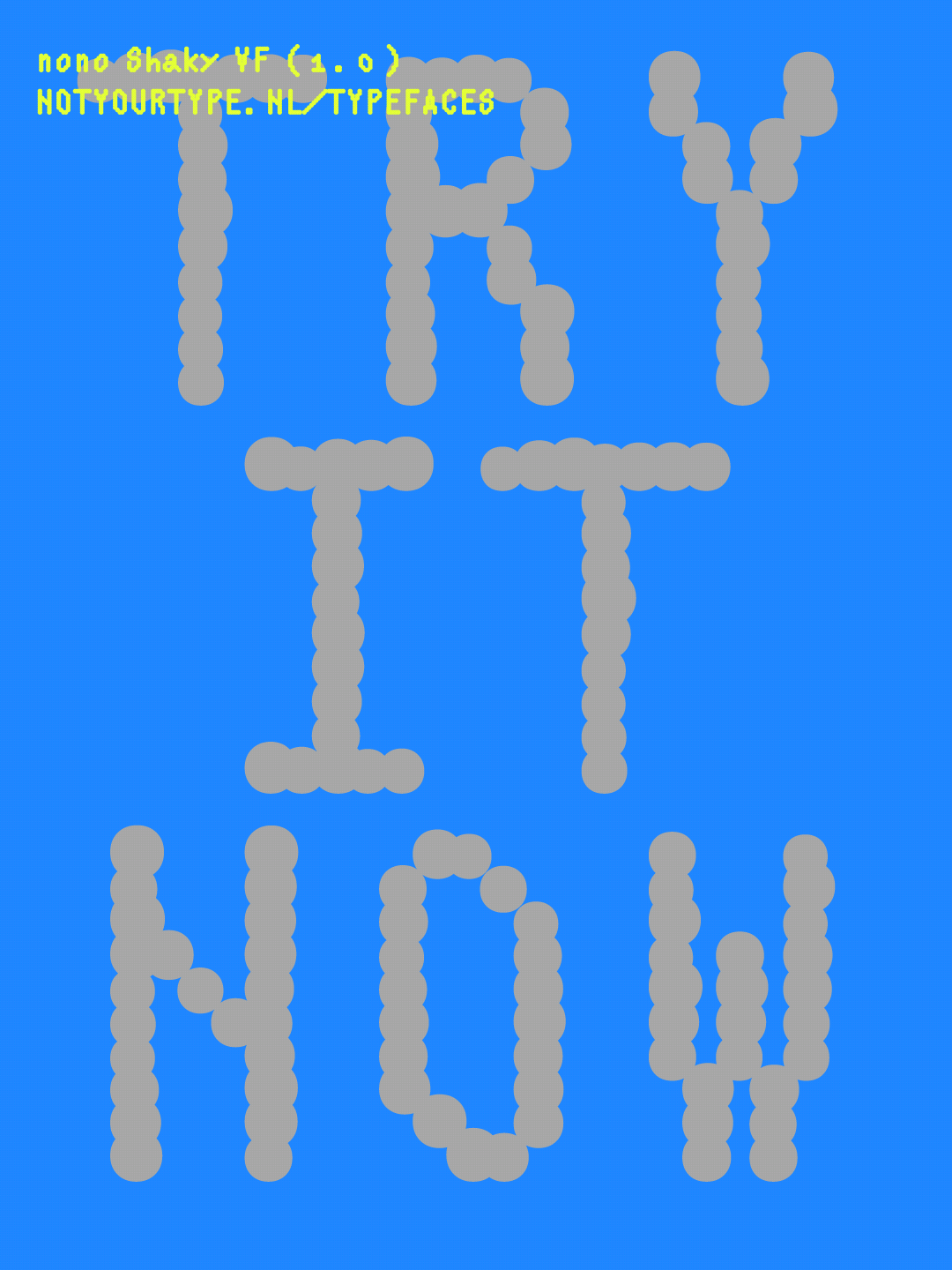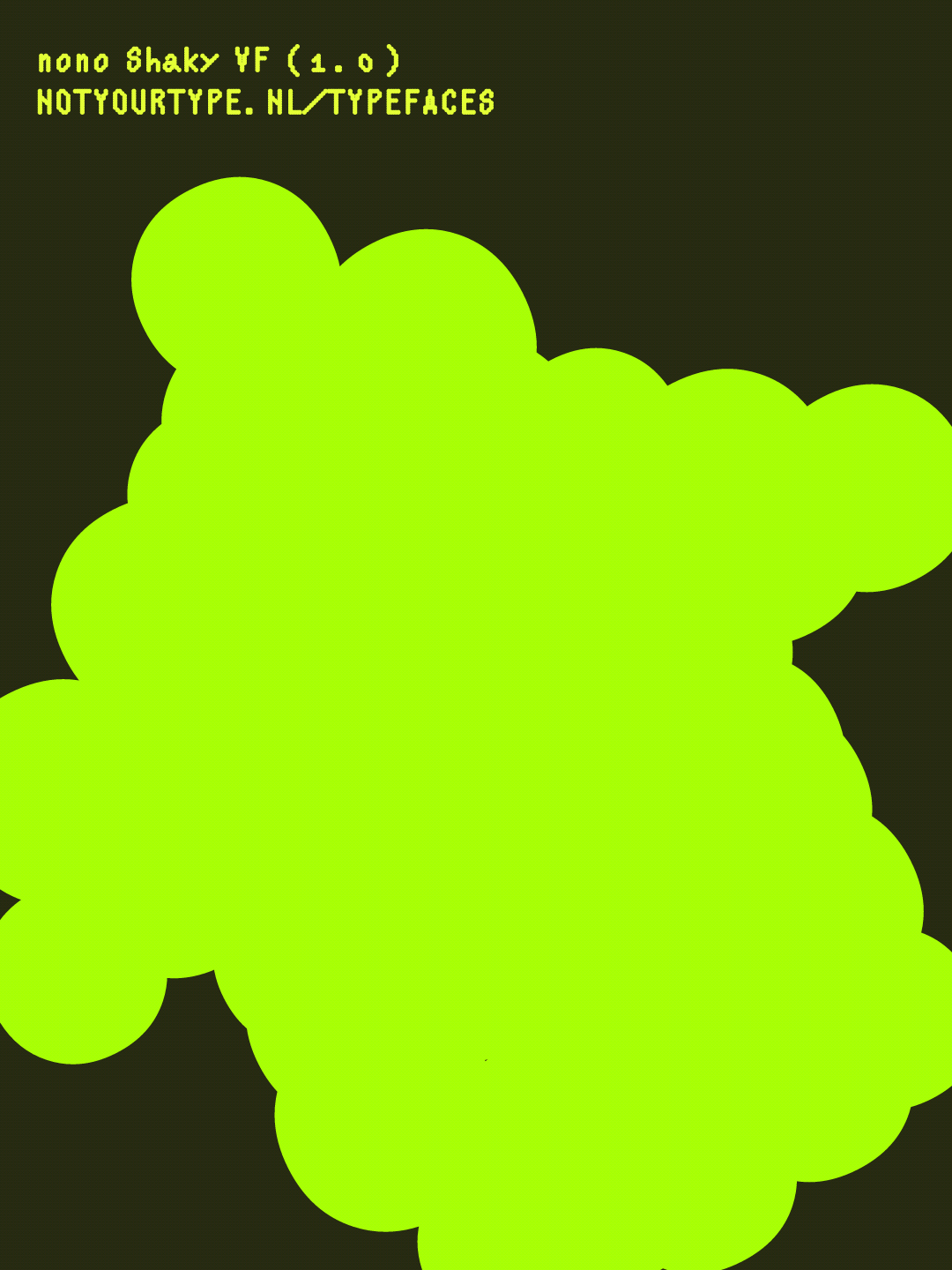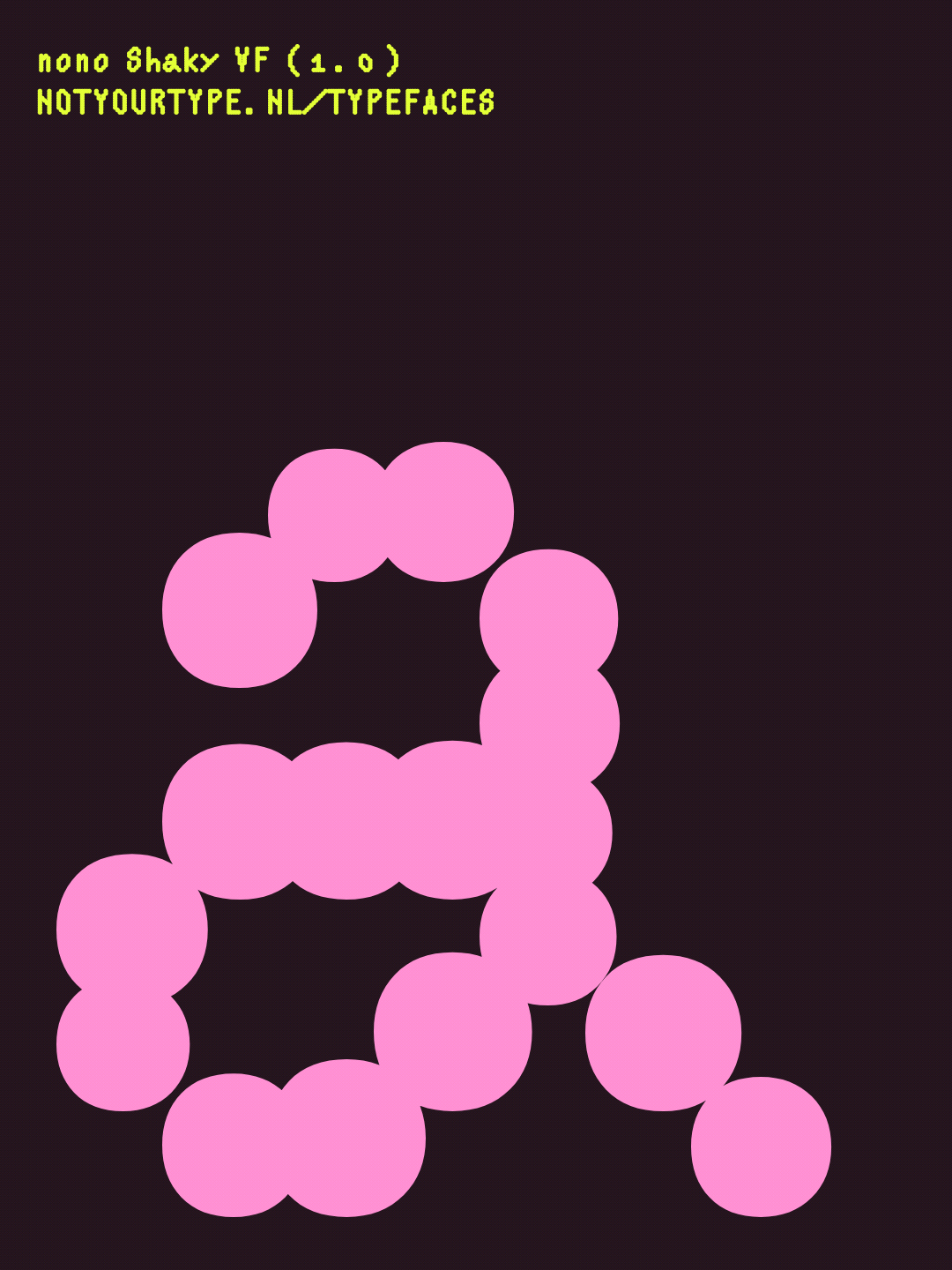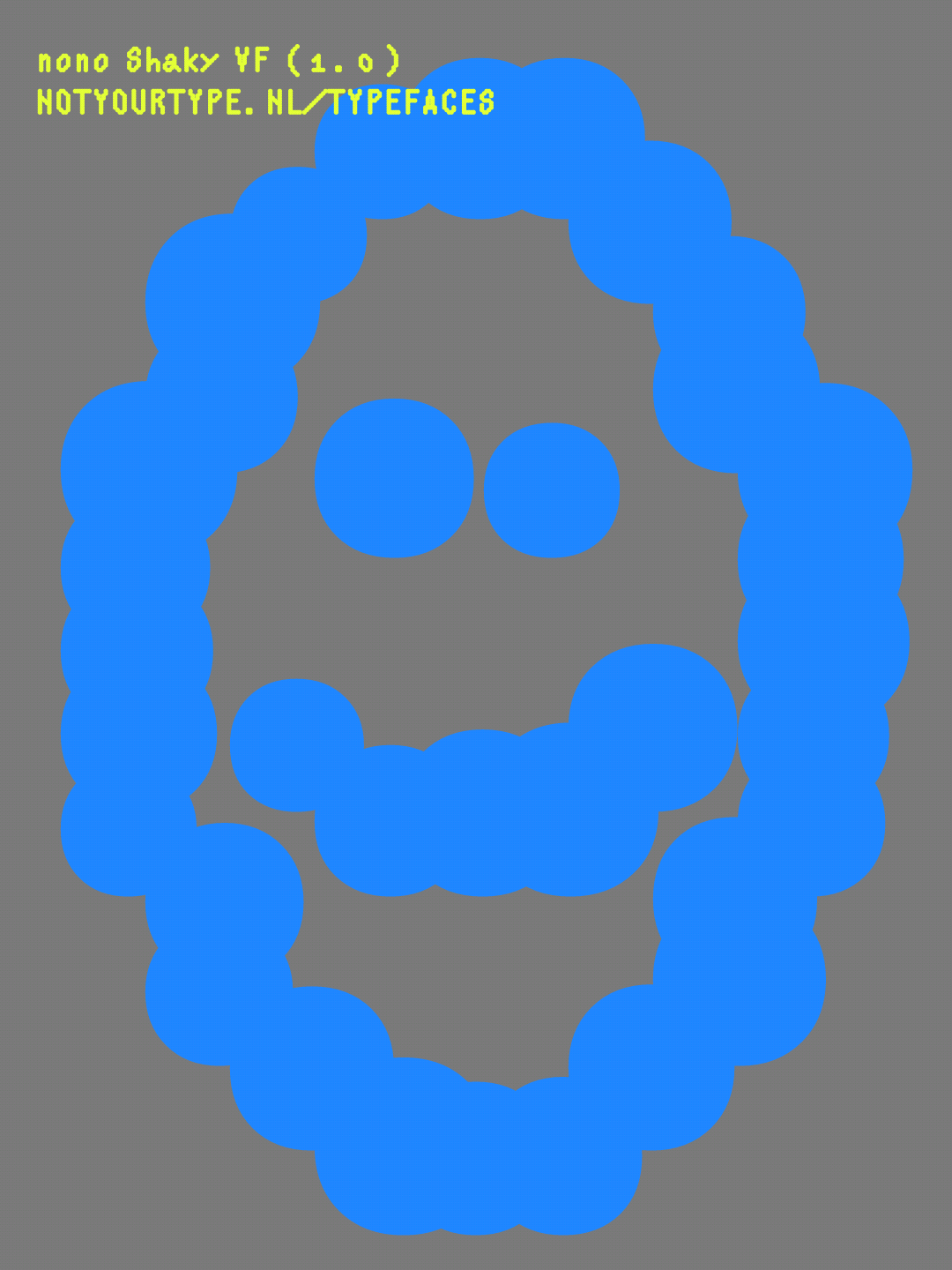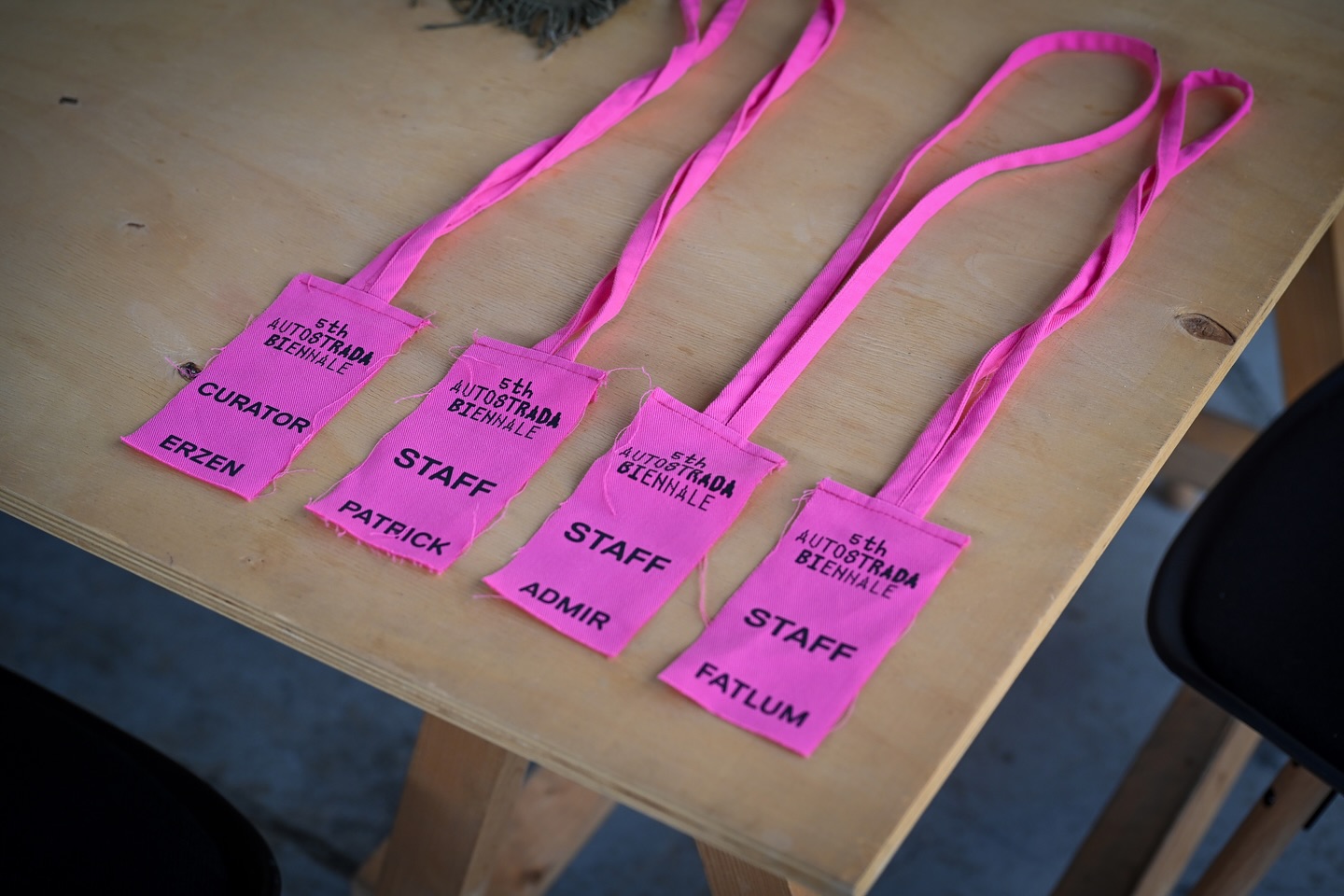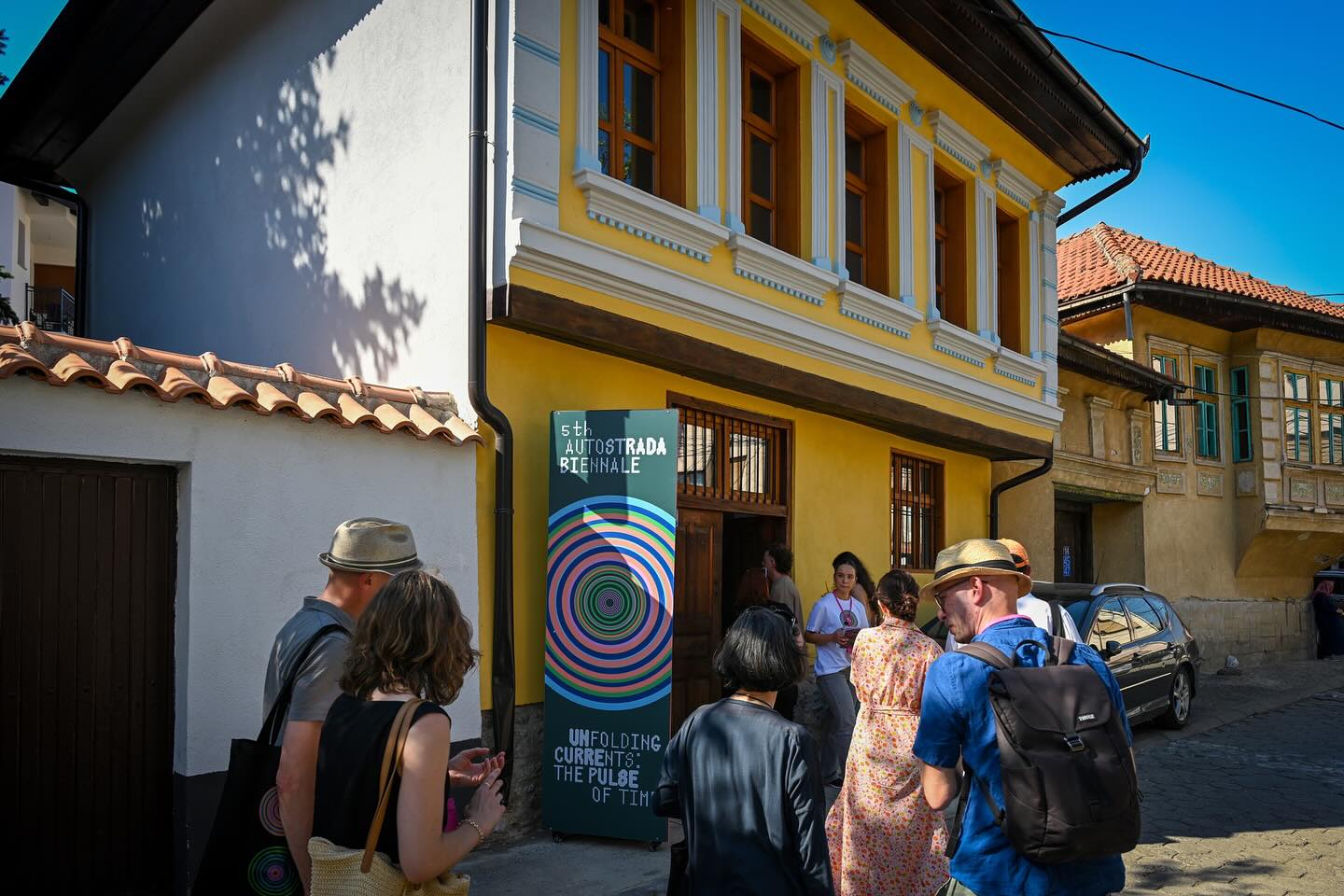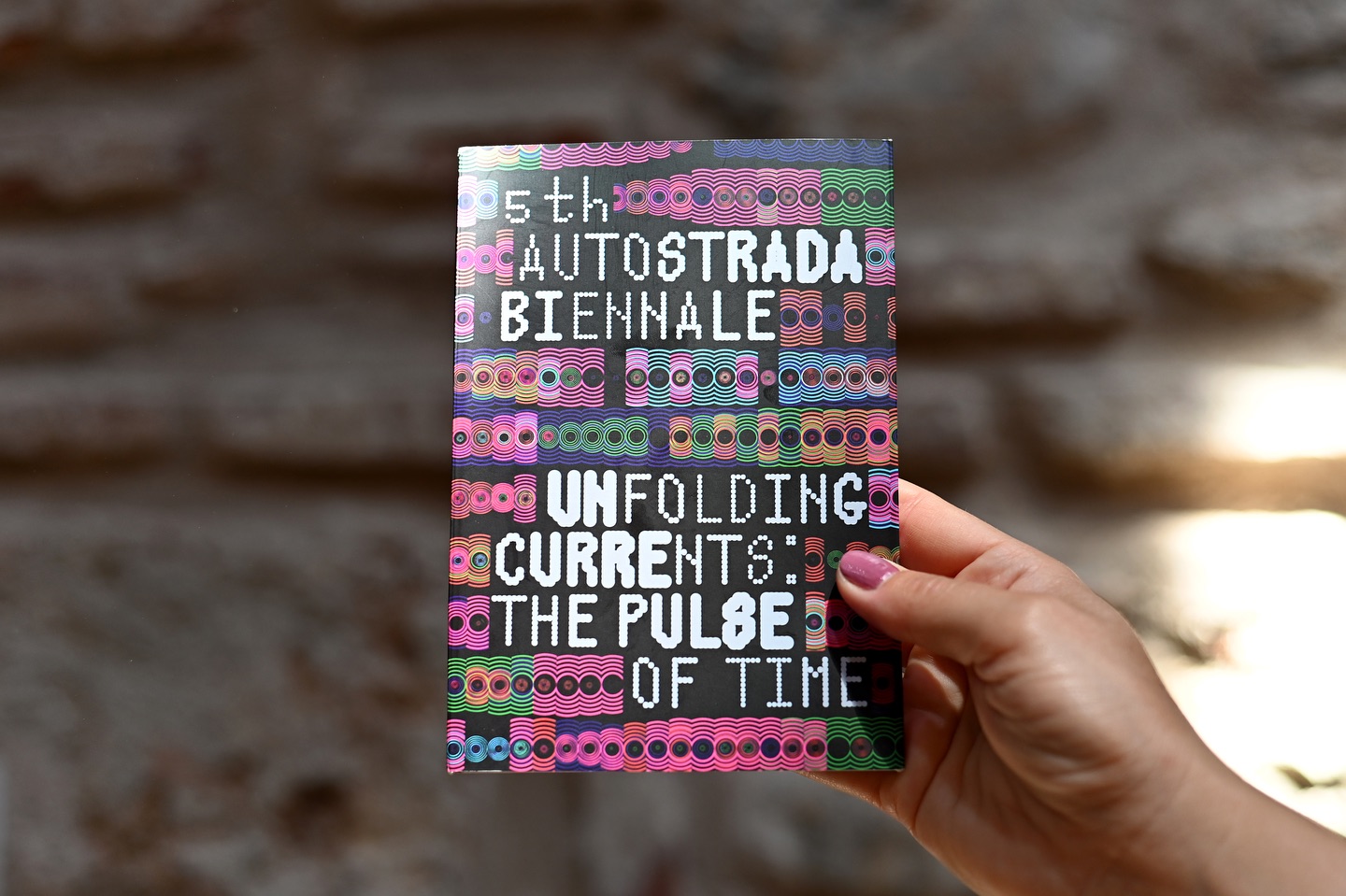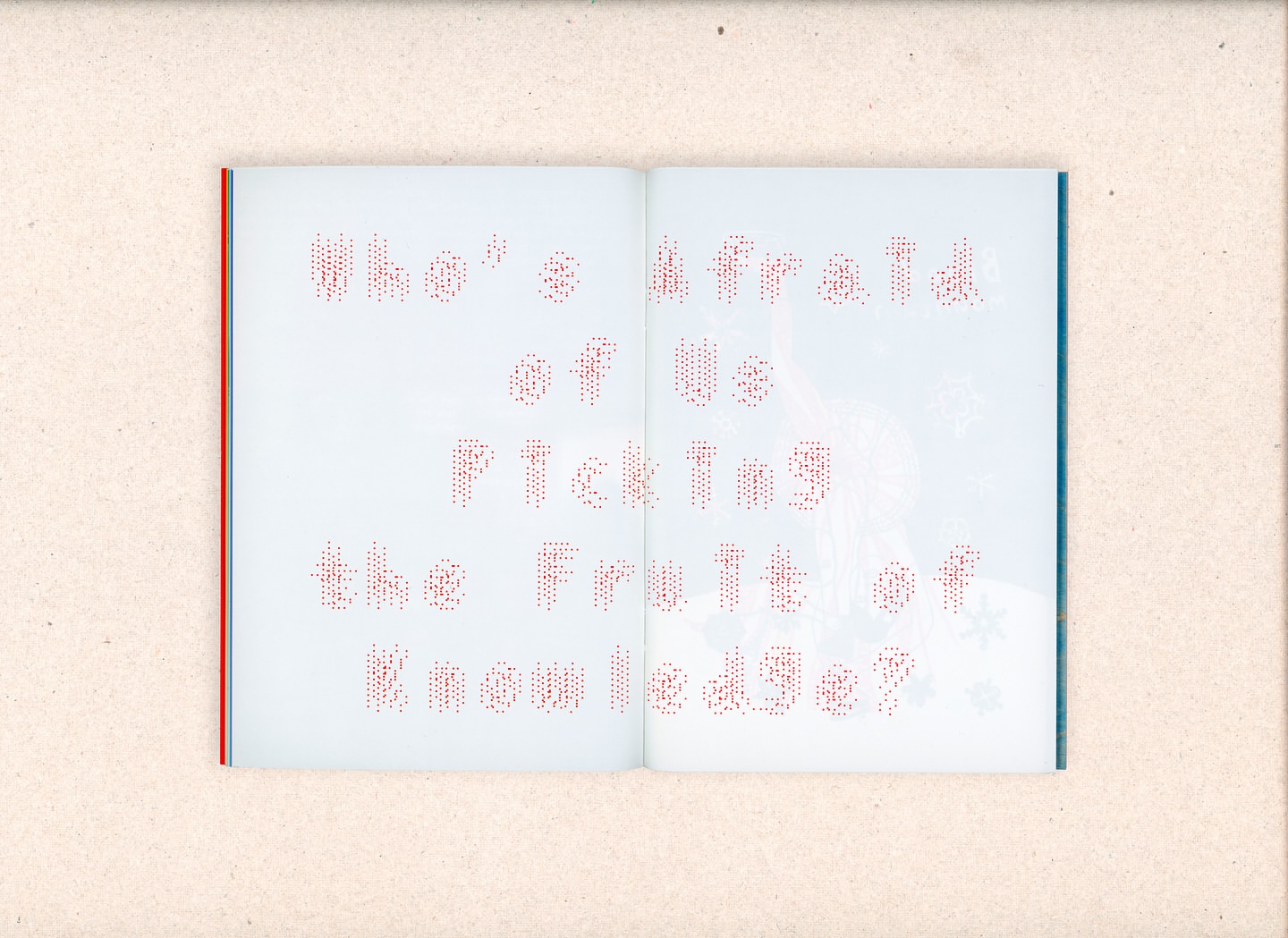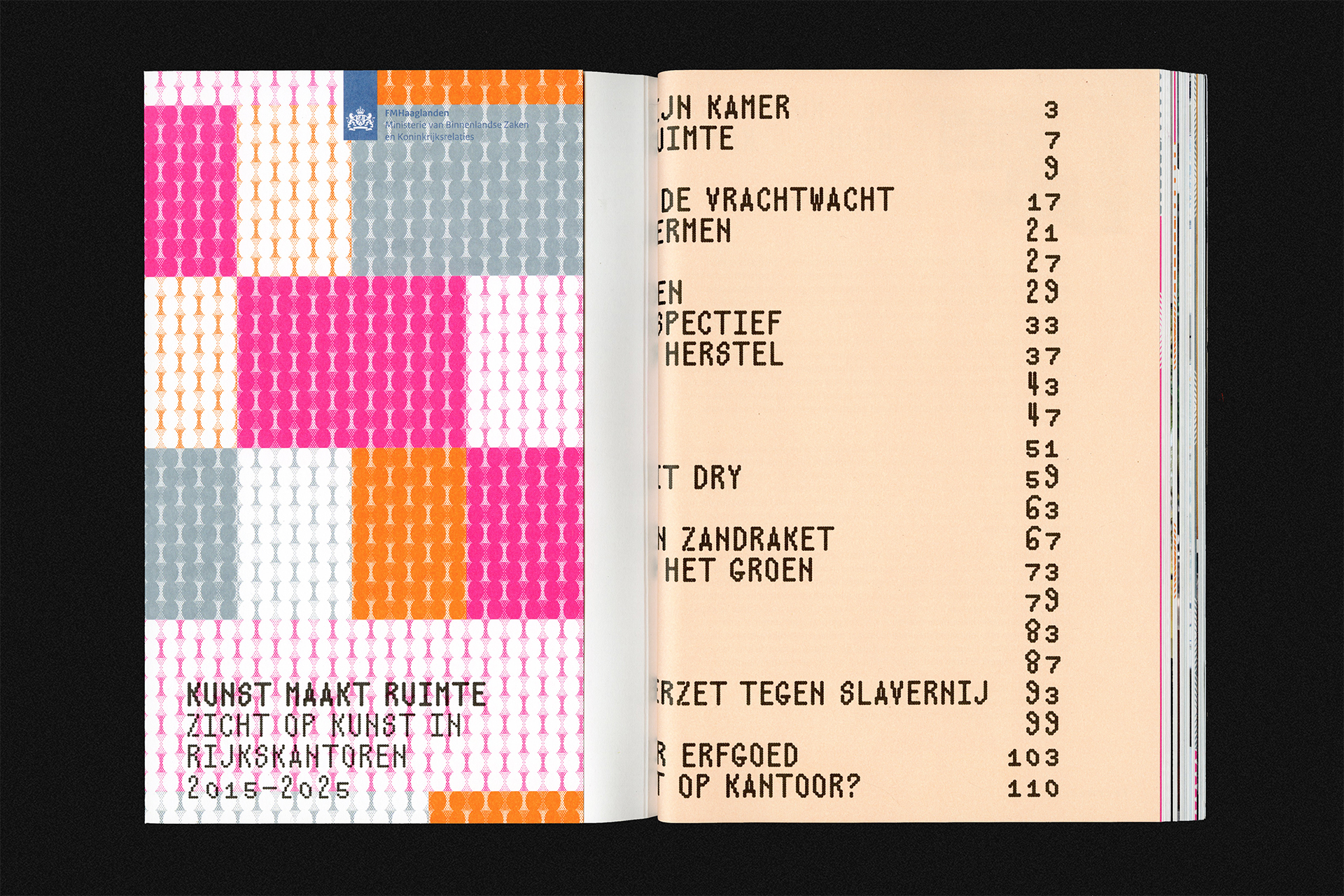
nono
By Xiaoyuan Gao
nono features a no-descender design: letters that usually reach below the baseline, like g, p, or y, stay entirely above it. The no-descender idea comes from Xiaoyuan's personal experience. When she was learning to write Latin letters in primary school in China, no one ever taught or corrected her on the concept of descenders, so she just wrote them however she liked. That absence of knowledge became a playful inspiration, turning an unintentional habit into a conscious design choice.
nono RGB is a colorful typeface whose standout feature is its use of OpenType's contextual alternates.
Features & Variations
Multiaxial Beast
About nono's designer
Xiaoyuan Gao (She/Her) is a Rotterdam-based graphic designer, type designer and founder of notyourtypefoundry. While experimenting with unconventional approaches to type design and typesetting, she sees type design as a tool making process.
graphic design by Team Thursday
‘Kunst maakt ruimte’ for the art collection of the Rijksoverheid
Team Thursday
Who's Afraid of Us Picking the Fruit of Knowledge?
Stasis Space